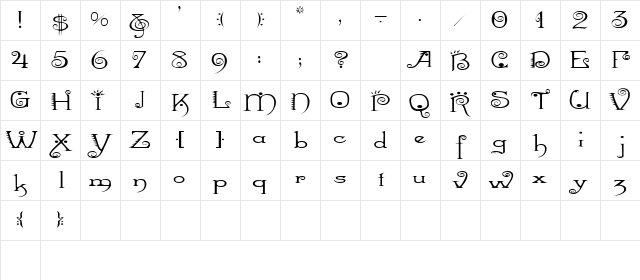
MexacaliExtended Regular
Design Context for MexacaliExtended
MexacaliExtended is a composed and adaptable typeface that performs quietly and consistently across a wide range of design contexts.